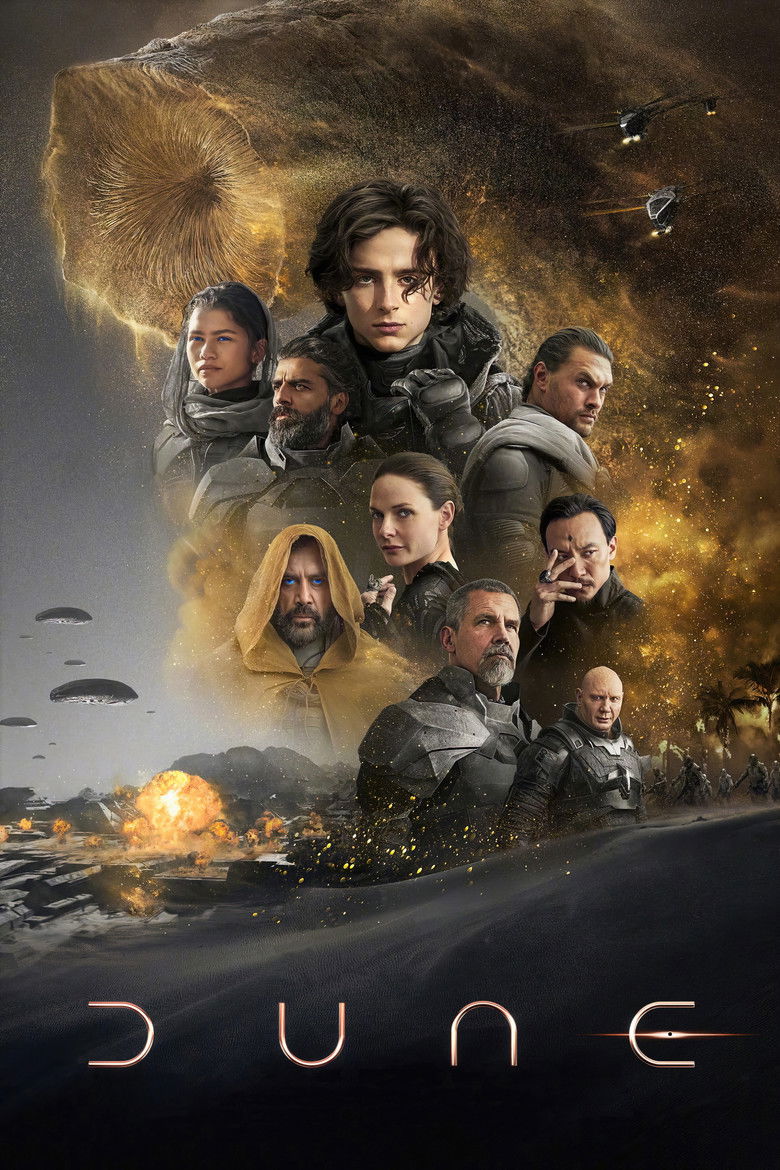
About the Dune font
Dune's title is a wide, monolithic display. Oswald evokes that vast, desert-planet scale for freely usable text.
What font is used in the Dune logo?+
The original Dune logo uses custom lettering. This generator recreates the look with Oswald — a free, open-license font you can style and download.